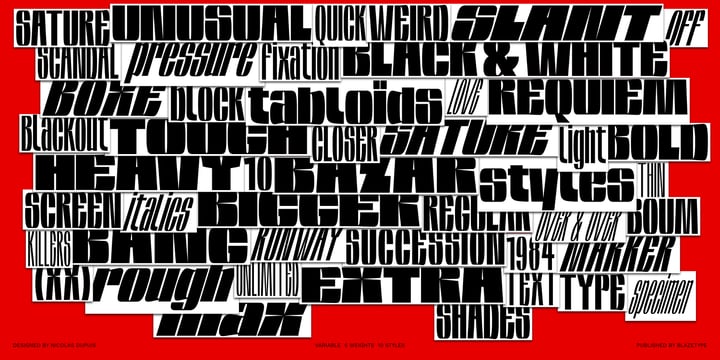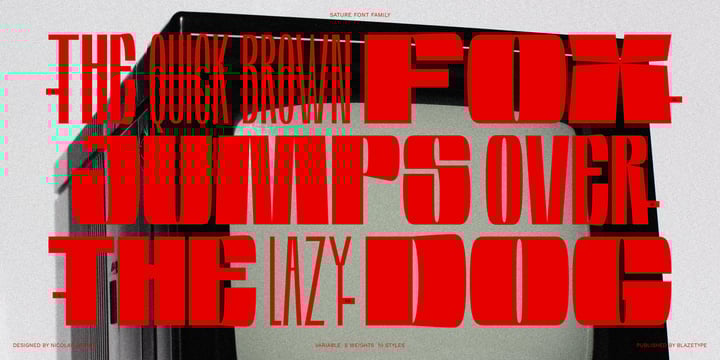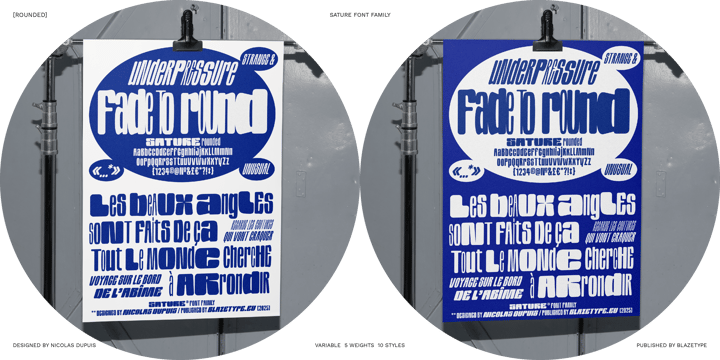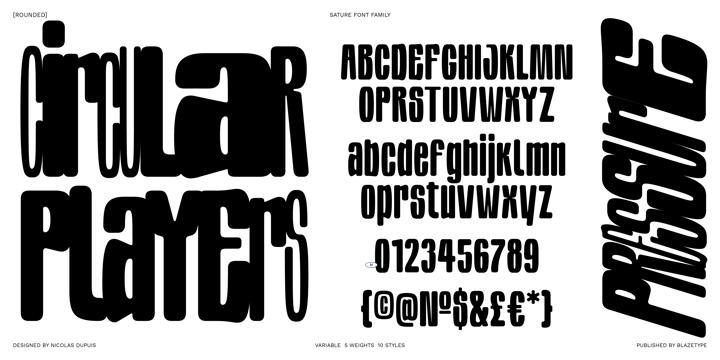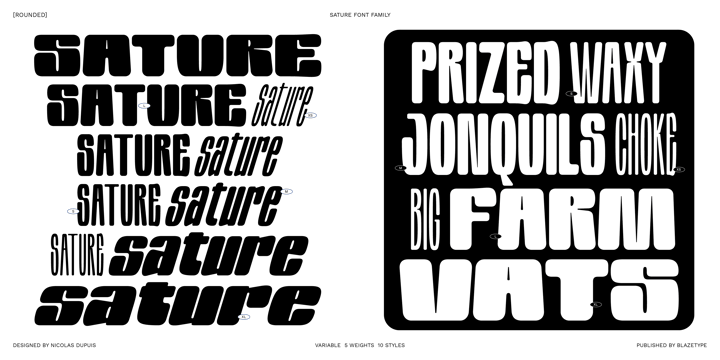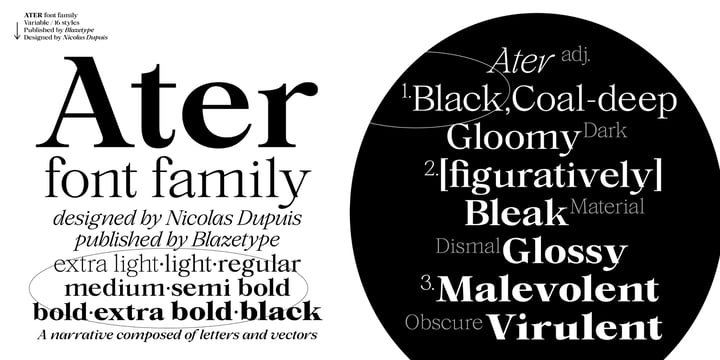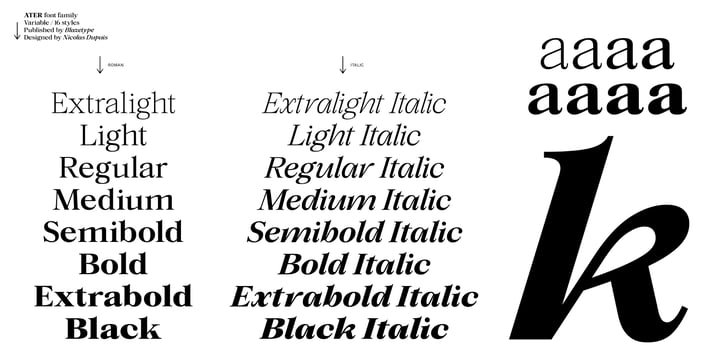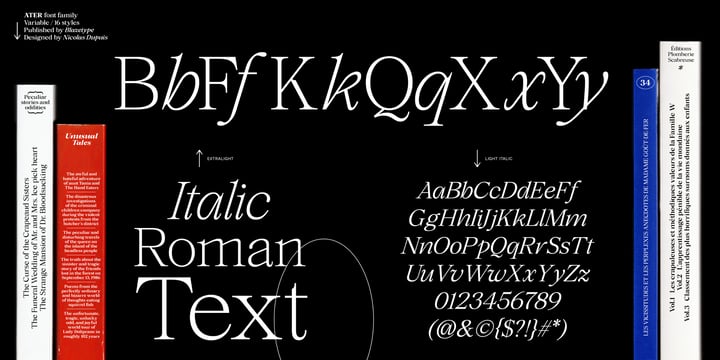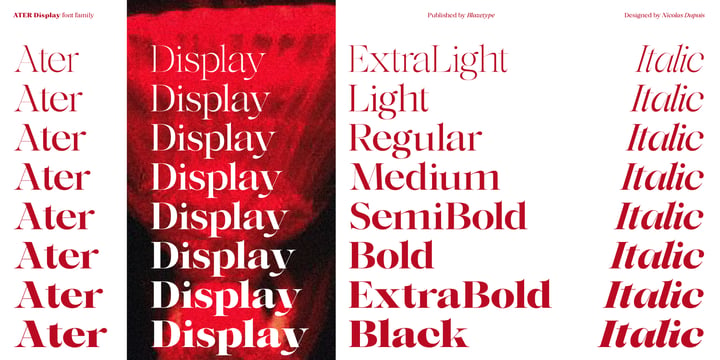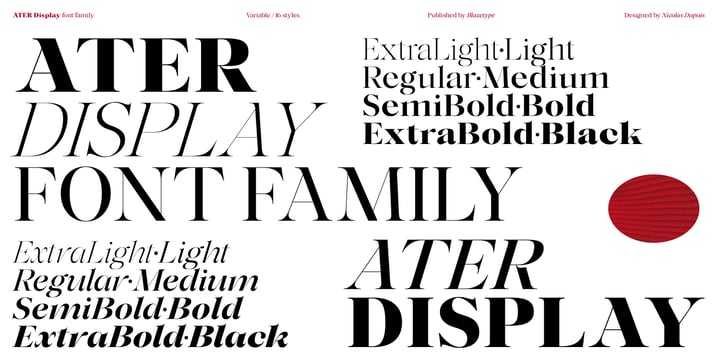
Nicolas Dupuis
Nicolas Dupuis is a freelance type designer and calligrapher based in Paris.
Since 2020, he has been working with studios and companies to create custom typefaces.
Specialised in type design, he also works as a graphic designer in publishing.
His work is mainly focused on developing typefaces from research projects on calligraphic lettering, and also extends to a strong calligraphic practice.
His first typeface, Négatif was released on Blazetype in early 2023. Designed for his diploma project in MFA in type design at the Estienne school of Paris, the font highlights the enthusiasm of the digitized calligraphic letter. Passionate about printing letters on paper, he shows a particular interest in calligraphic experimentation through each of his projects.